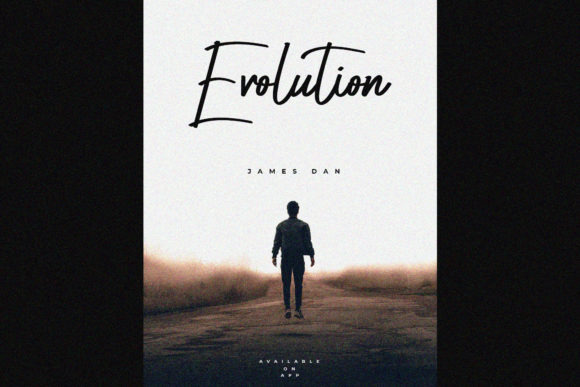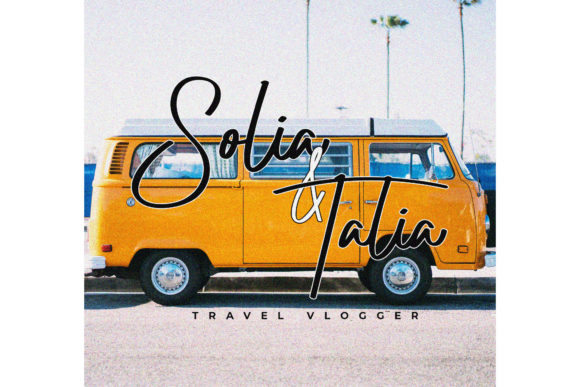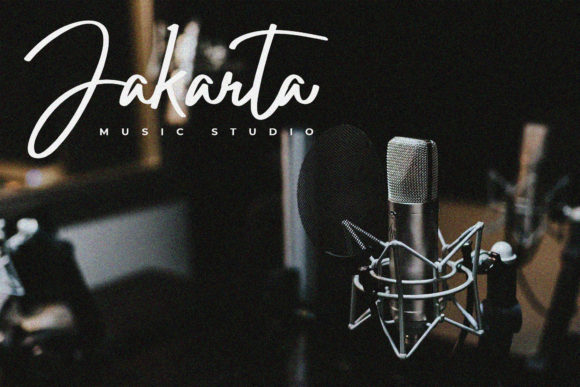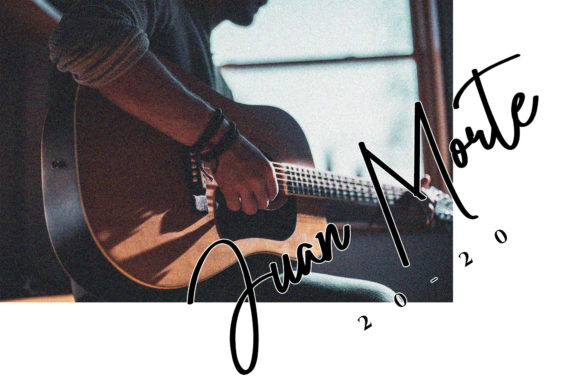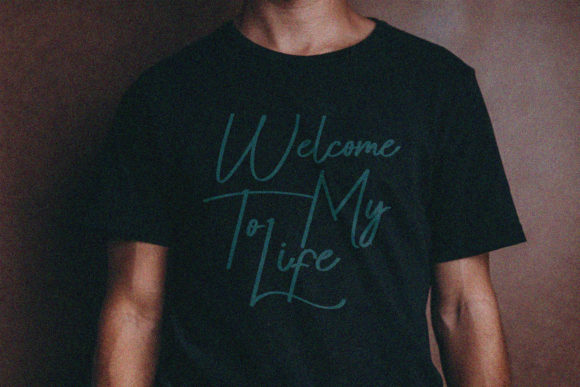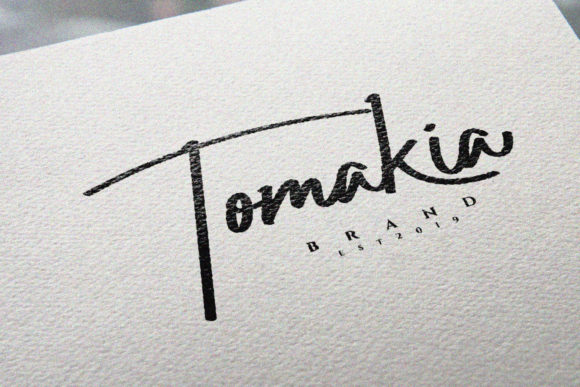
Introduction to Hokaide Font
Hokaide is a sophisticated script font with simple lines that can be used to create signatures, logos, branded elements, wedding invitations, and greeting cards.
This font is a suitable companion for your branding, logotypes, group names, book titles, handicrafts, and others This font is PUA encoded which means you can access the available glyphs and swashes with ease.